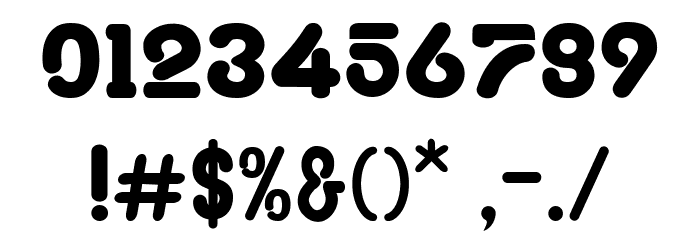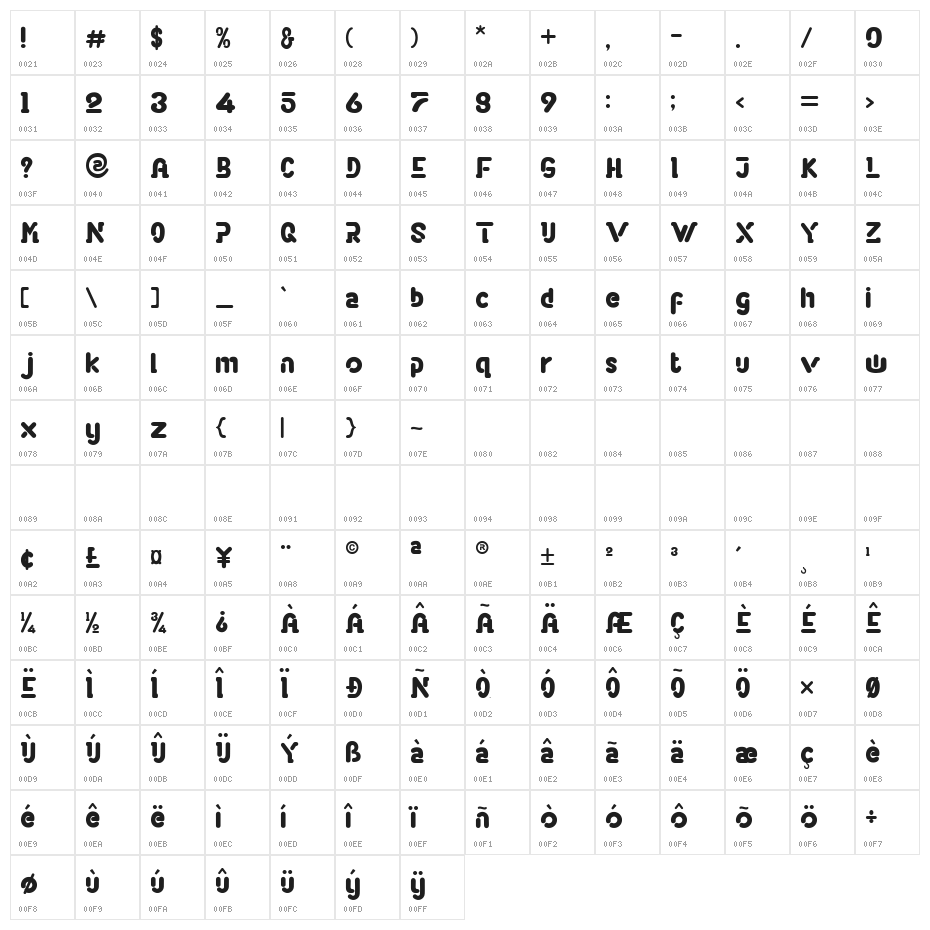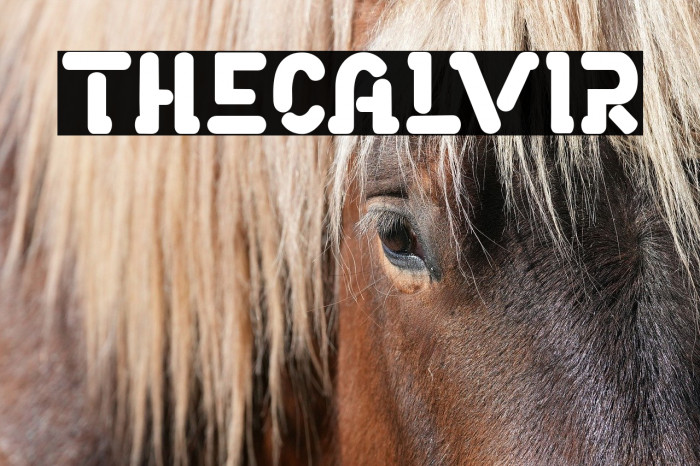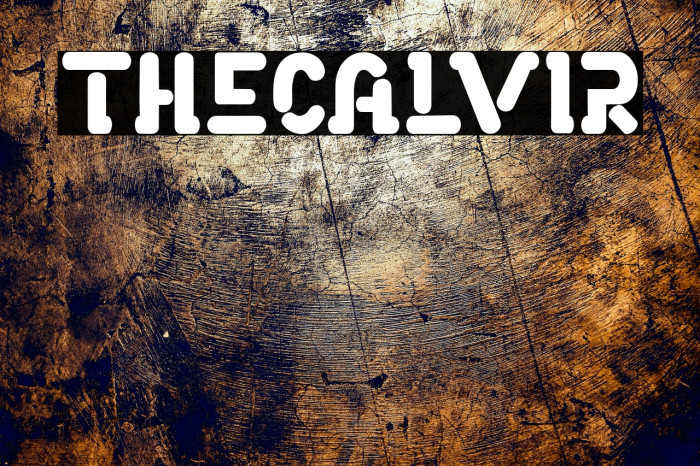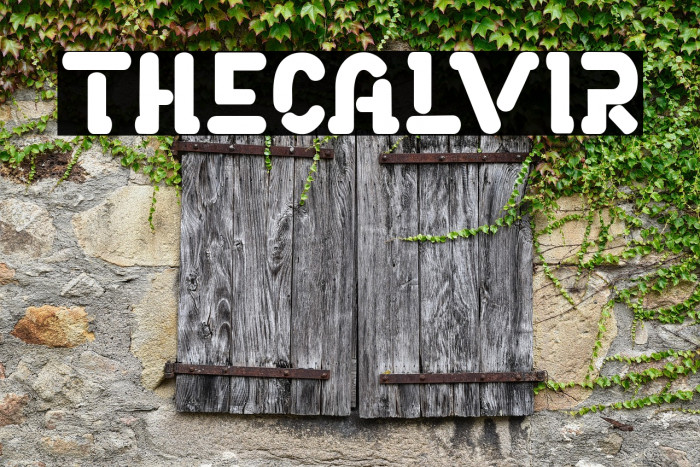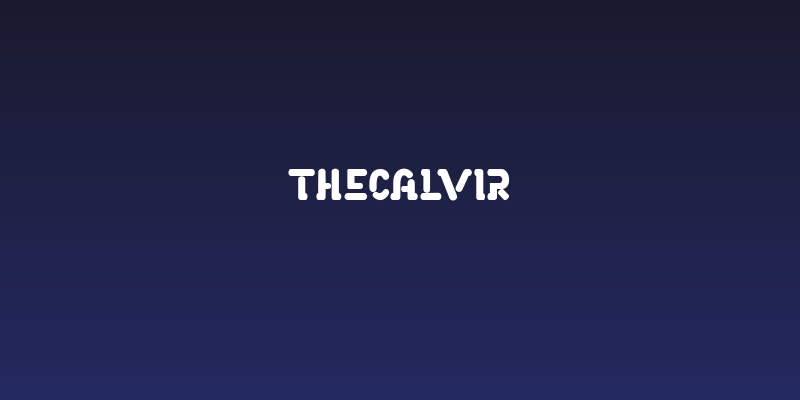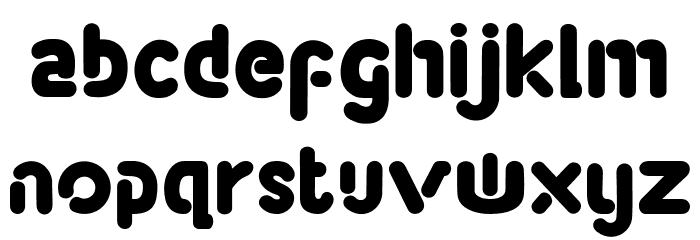
THECALVIR Font
THECALVIR Description
This font features a bold and rounded style with a modern and playful aesthetic. The characters are uniformly thick, giving them a strong presence on the page. The rounded edges and consistent stroke width contribute to a friendly and approachable look. The uppercase and lowercase letters maintain a cohesive design, with the lowercase mirroring the playful nature of the uppercase. Numbers and special characters are designed with the same boldness and rounded forms, ensuring consistency across all elements. This font is ideal for projects that require a fun and engaging visual impact.
| Proposed Projects | Ideal for children's books, playful branding, posters, and social media graphics. |